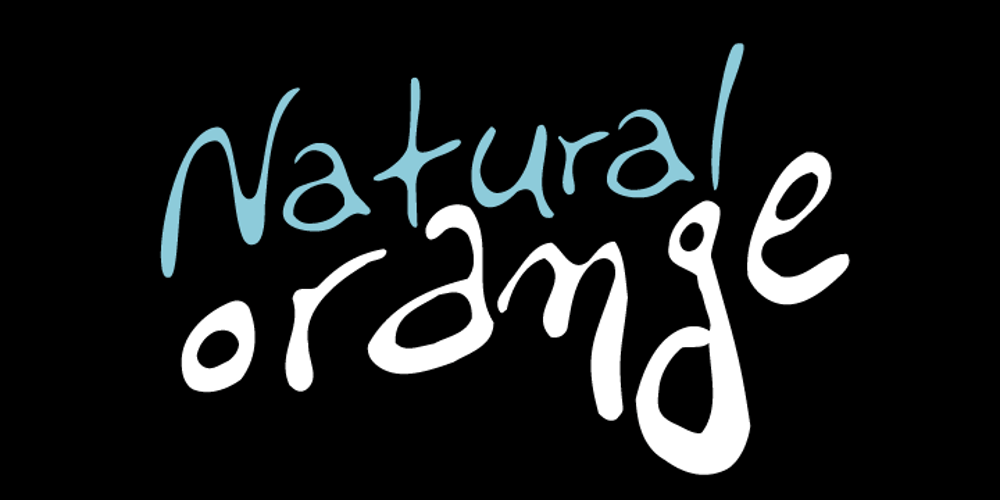
PF Libera Pro Font Family was designed by Charis Tsevis and published by Parachute. PF Libera Pro contains 3 styles and family package options. PF Libera was designed at a time of leisure with no particular intention for commercial use. In fact it was offered in the beginning as a freeware. In 2001, designer Charis Tsevis was convinced that it may have some commercial value, so Parachute obtained the rights to sell this typeface. At that time, we did not even imagine what would follow. Since then, PF Libera is one of our most successful typefaces. We have seen it being used in very diverse applications. From publishing to advertising to banking, to transportation, to retail applications. Food, beverages, fashion, automobiles, tourism, the list goes on and on. In any way, this typeface is very personal, modern and provocative. It stays with you and definitely it brings along the message. PF Libera comes in 3 styles. One of them, ‘Liberissima’, was added later and is more loose than the other two. The new ‘Pro’ version is powered with 7 OpenType features and is carefully designed to include all languages that are based on Latin, Greek and Cyrillic.